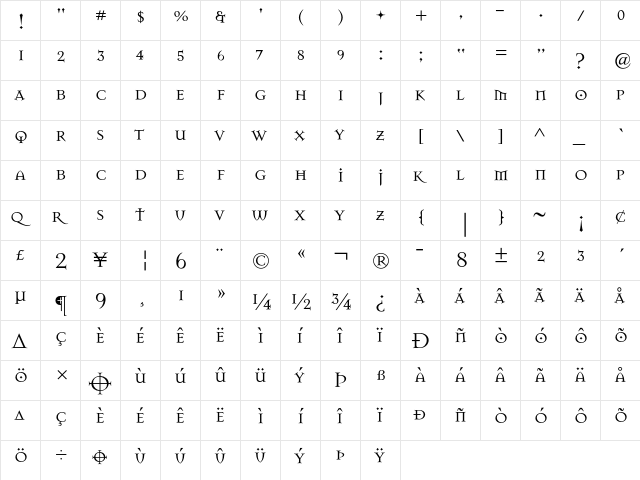
MansonSuper Regular
Design Context for MansonSuper Typeface
MansonSuper takes a measured approach to typography — its balanced proportions and neutral character make it a reliable workhorse for both digital and print work.